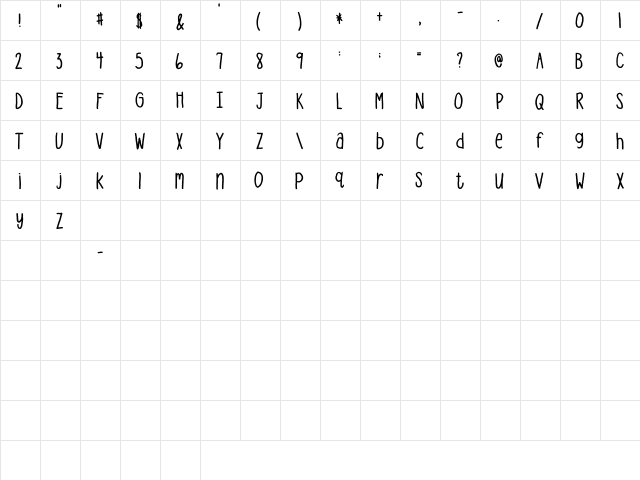
2Peas Proud Papa 2Peas Proud Papa Font Preview
2Peas Proud Papa 2Peas Proud Papa
2Peas Proud Papa 2Peas Proud Papa Font Details
Design Context for 2Peas Proud Papa Typeface
2Peas Proud Papa is a composed and adaptable typeface that performs quietly and consistently across a wide range of design contexts.